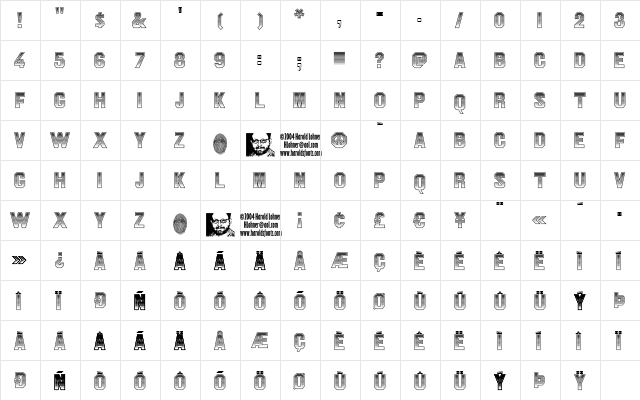
Jim Dandy2D Regular
Design Context for Jim Dandy2D Typeface
Jim Dandy2D is a composed and adaptable typeface that performs quietly and consistently across a wide range of design contexts.